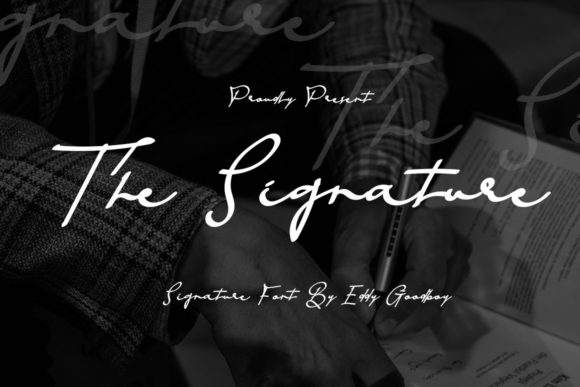
About The Signature Font
The Signature is a thin lettered and graceful script font. Fall for its ravishing style and use it to create gorgeous wedding invitations, beautiful stationary art, eye-catching social media posts, and much more!